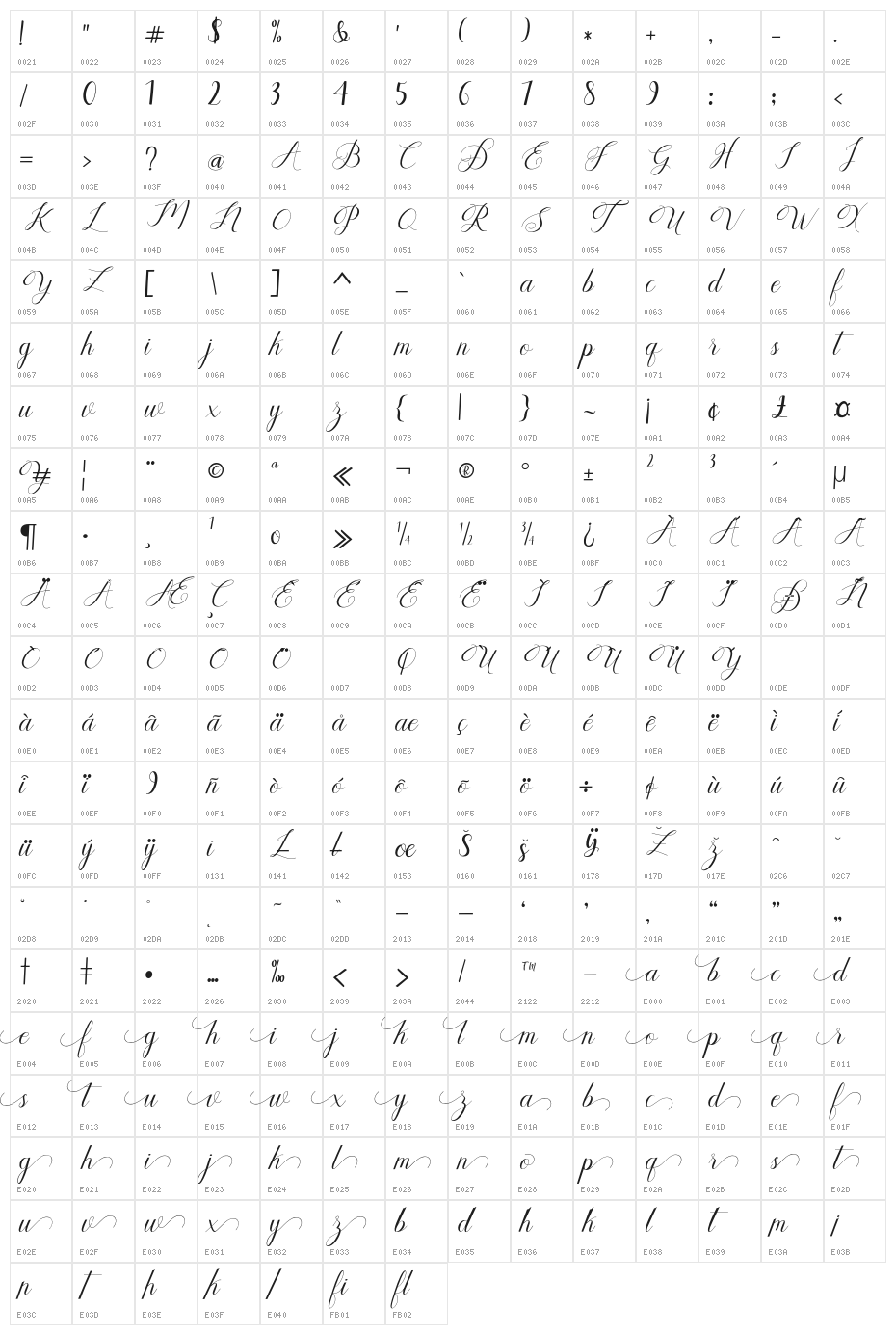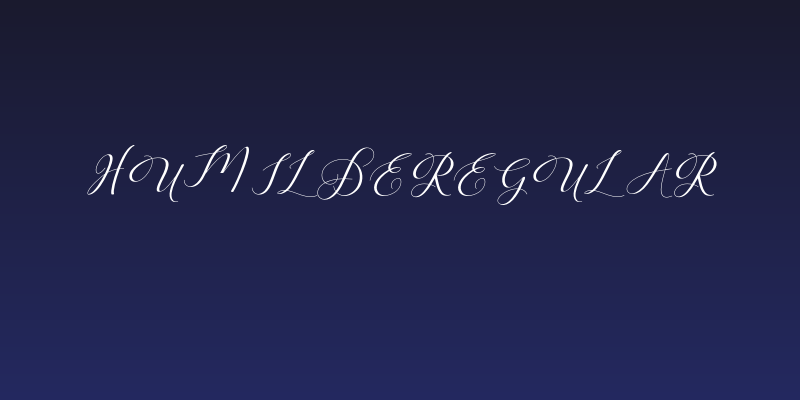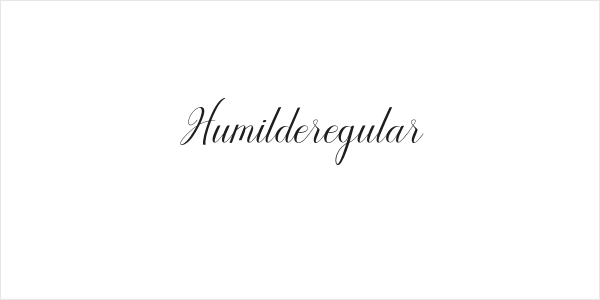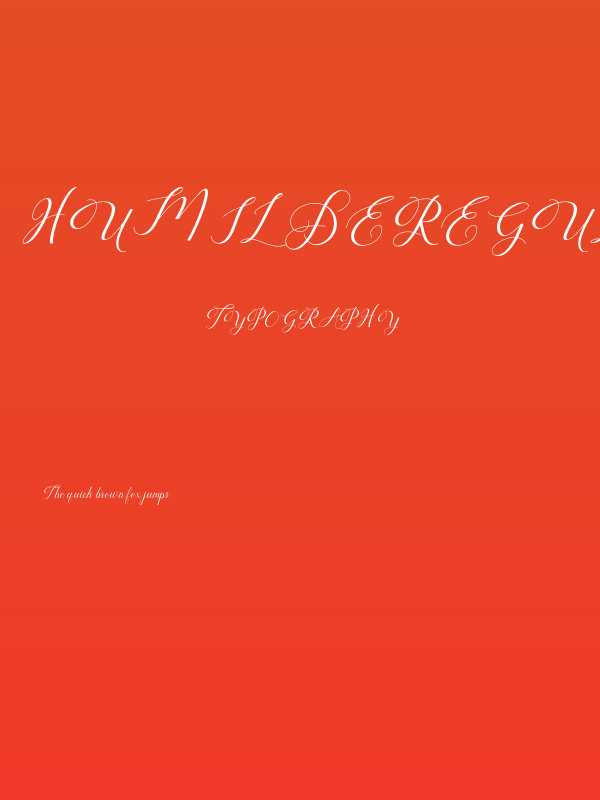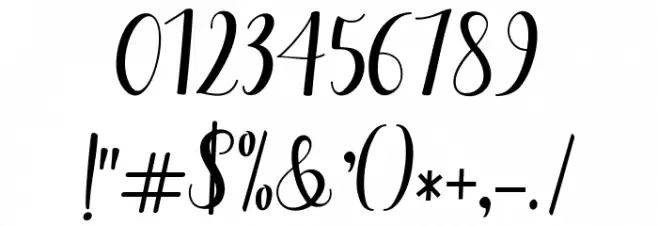
Humilderegular Font
Humilderegular Description
This elegant script font features graceful, flowing lines and a sophisticated style. The uppercase letters are characterized by their sweeping curves and delicate loops, while the lowercase letters maintain a consistent fluidity, enhancing readability. The numerals are stylishly crafted, matching the overall aesthetic of the alphabet. Special characters are designed with the same attention to detail, making them seamlessly integrate with the rest of the font. The font's thin strokes and high contrast give it a refined and luxurious appearance, suitable for formal and decorative applications.
| Overall Style | Elegant, Decorative |
| Use Case | Headlines, Invitations, Logos |
| Proposed Projects | Ideal for wedding invitations, elegant branding, luxury product packaging, and decorative headings. |